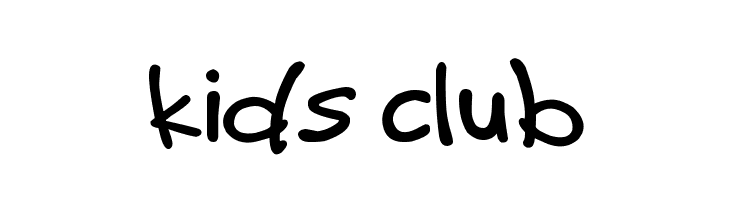
A whimsical, decorative font with cartoon characters embedded in each letter.
A whimsical, Halloween-themed font with scarecrow silhouettes and hand-drawn style.
A bold, playful font with a unique shadow effect and rounded characters.
A playful, shadowed font with a bold and dynamic style.
A playful, bold font with rounded edges and thick strokes.
A playful, heart-themed decorative font with romantic doodles and expressions.
An ornate and decorative font with intricate uppercase and outlined lowercase letters.
A playful, Easter-themed decorative font with outlined letters and festive graphics.
A playful, elongated font with rounded edges and uniform stroke width.